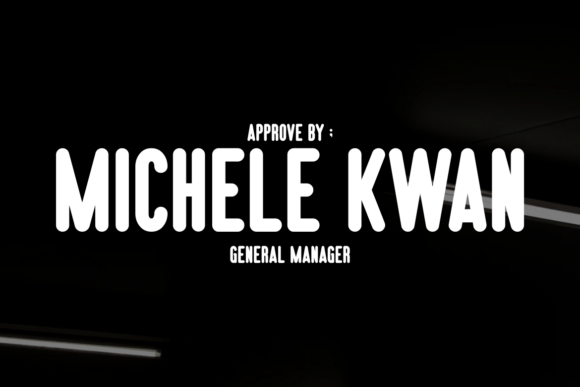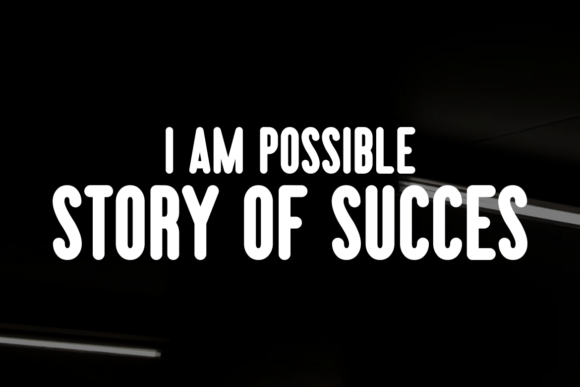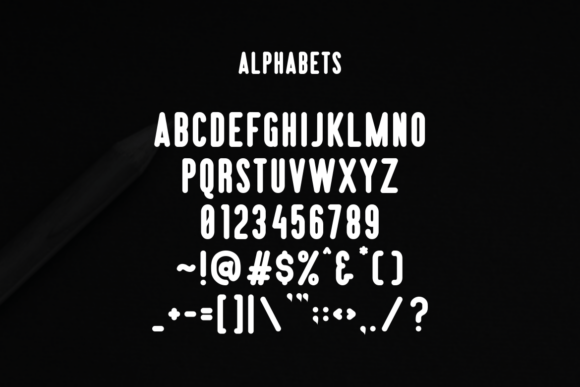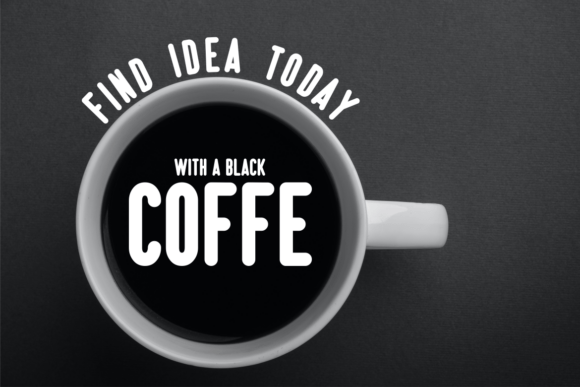
Introduction to Paniscobe Font
Introducing an impressive, bold, and contemporary typography.
This impactful font exudes strength and power, making it perfect for making a striking statement With its thick and condensed character set, Strong Black leaves an indelible impression, making every project distinctive and unforgettable.
Key Features of Paniscobe Font
Why Choose Paniscobe Font?
Paniscobe Font offers exceptional quality and versatility, making it a valuable addition to your design toolkit. Whether you’re creating for personal projects or commercial use, Paniscobe Font delivers professional results.